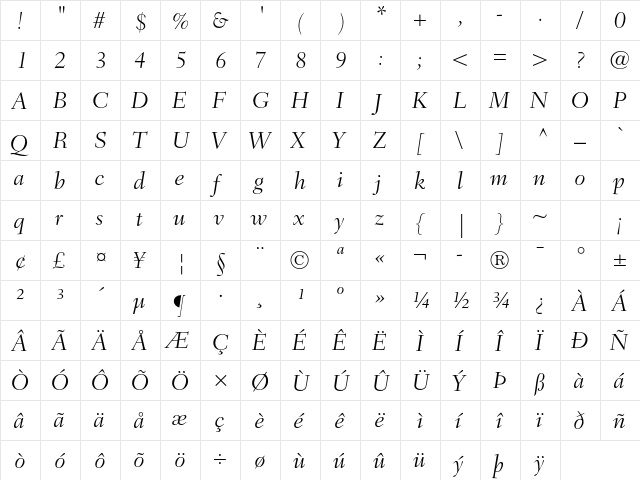
Fairfield LT Std 46 Light Italic
| Designer | Rudolph Ruzicka, Alex Kaczun |
Design Context for Fairfield LT Std Typeface
Fairfield LT Std is a composed and adaptable typeface that performs quietly and consistently across a wide range of design contexts. The slanted form adds forward momentum and visual energy. Its slender proportions lend an understated elegance to any composition.
Pro Tip: Try Fairfield LT Std for annotation and caption copy alongside an upright companion — the contrast in angle creates a dynamic but ordered typographic system.